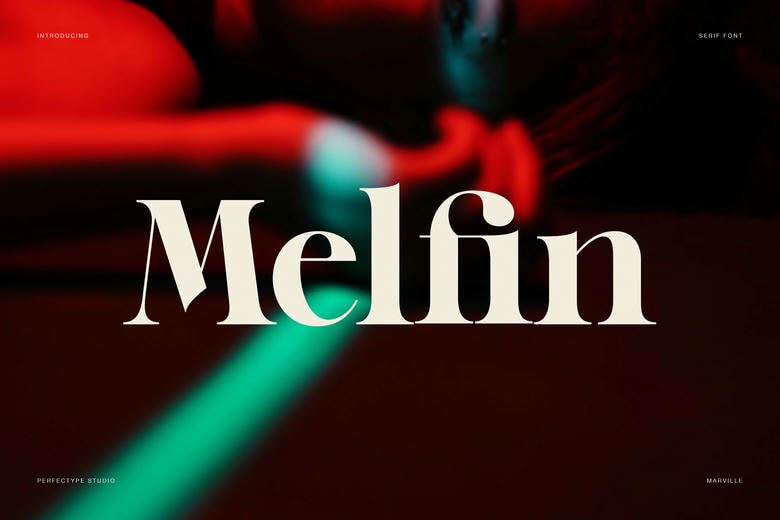
Melfin Font
Milant is a graceful modern serif typeface designed to convey a sense of confidence, coziness and sophisticated simplicity. At the initial glance, this font is fashionable and subtle. Hence, it is a powerful option among designers who desire typography that feels expressive yet restrained.
Milant is made of classic serif foundations with smooth curves and balanced contrast. Consequently, every letterform is soft yet organized. The figures are natural and the minor details give the shapes personality without drawing attention. Furthermore, the overall design is also clean, and it contributes to the font having a sense of timelessness and versatility.
Melfin Serif Font